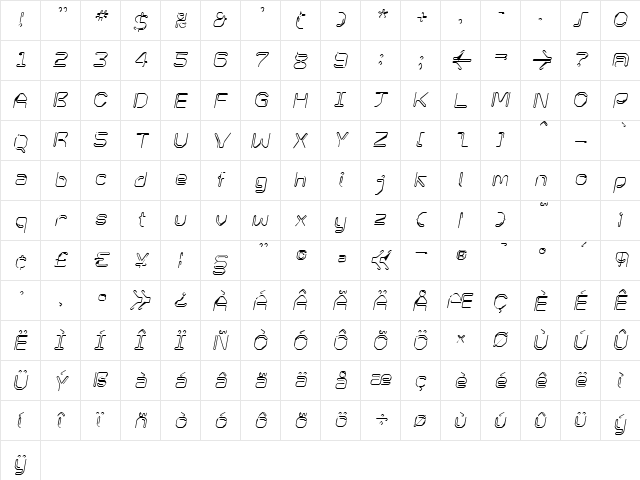
KneeonSquare Italic Regular
Design Context for KneeonSquare Italic Typeface
KneeonSquare Italic is a composed and adaptable typeface that performs quietly and consistently across a wide range of design contexts. Its italic angle brings a sense of urgency and motion to the letterforms.
Pro Tip: Try KneeonSquare Italic for annotation and caption copy alongside an upright companion — the contrast in angle creates a dynamic but ordered typographic system.